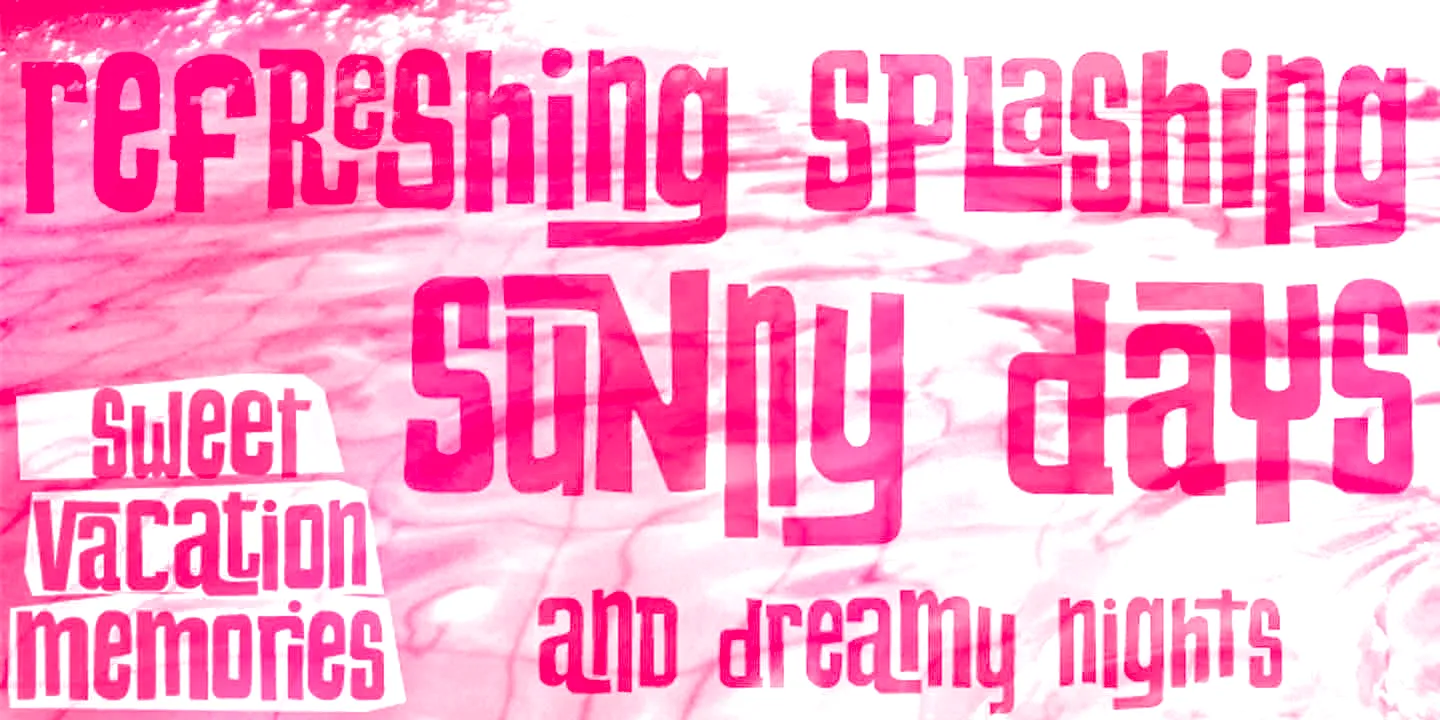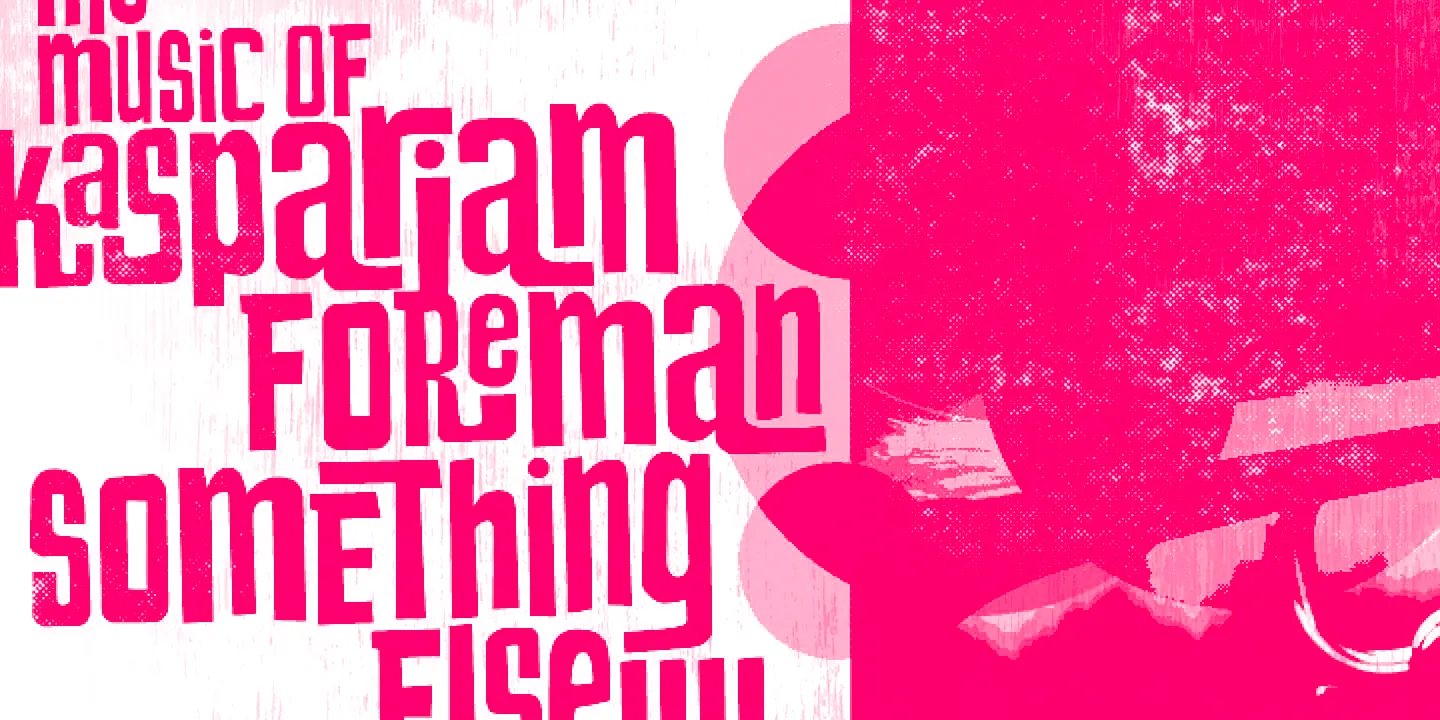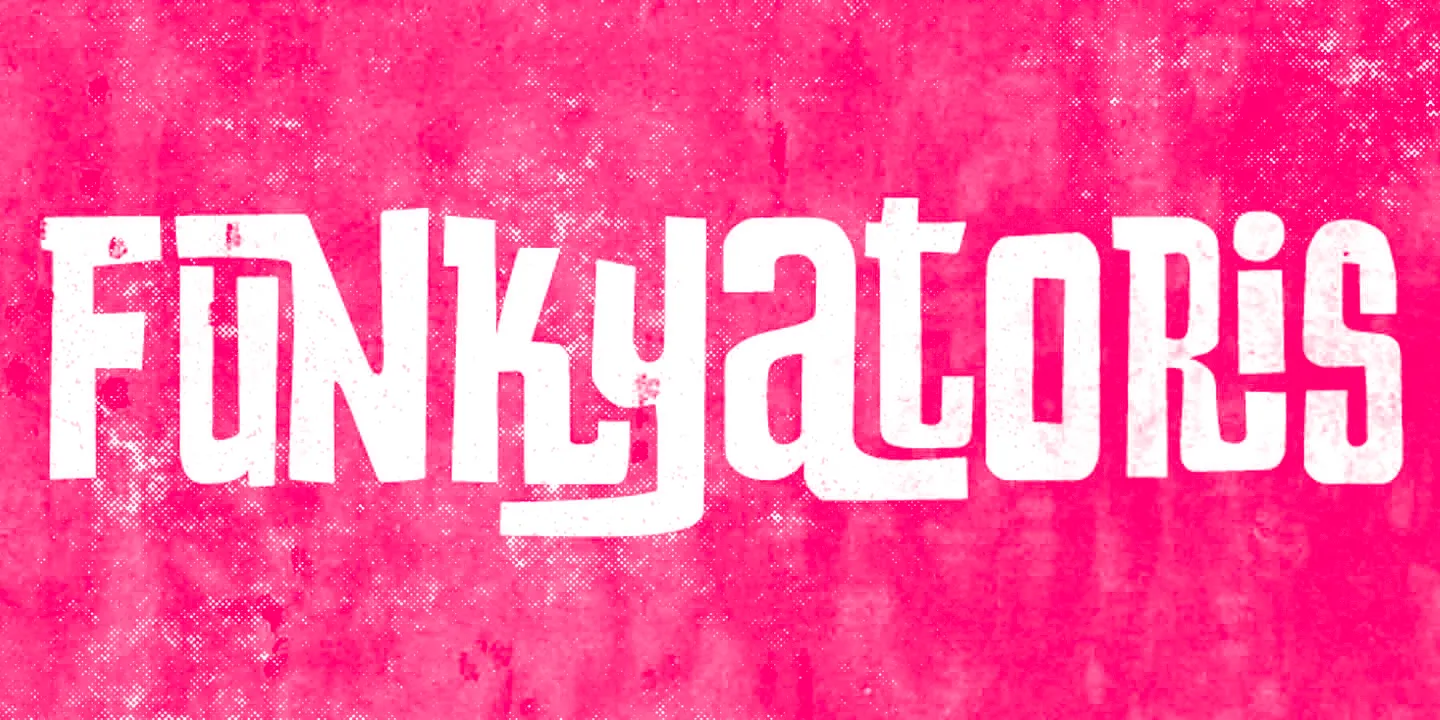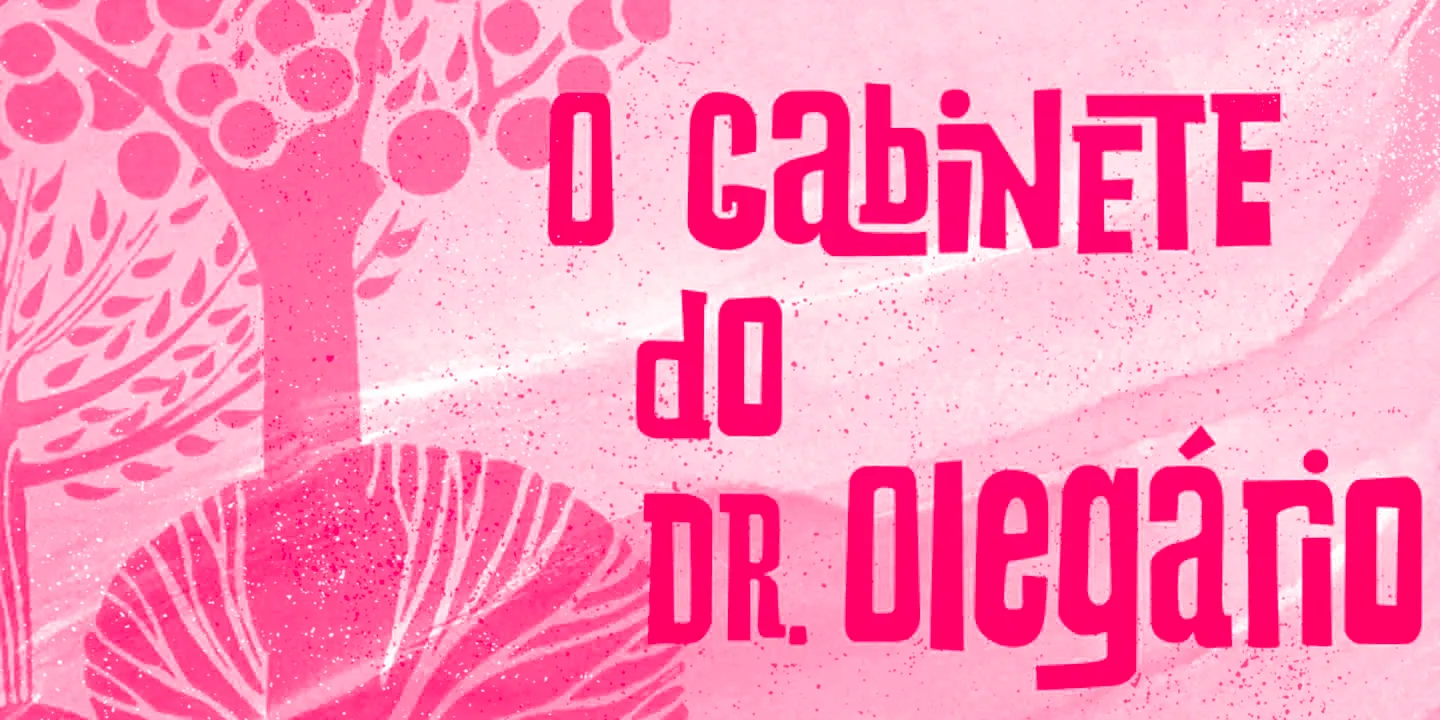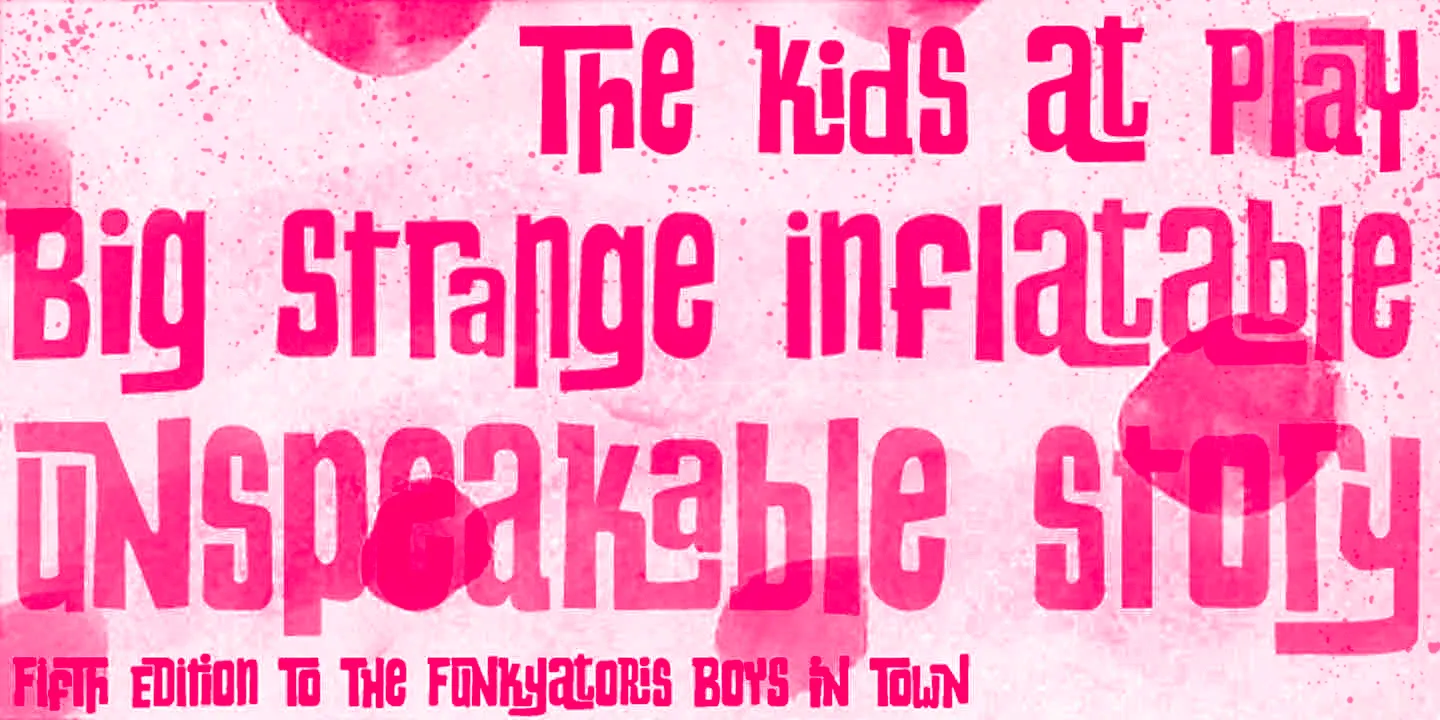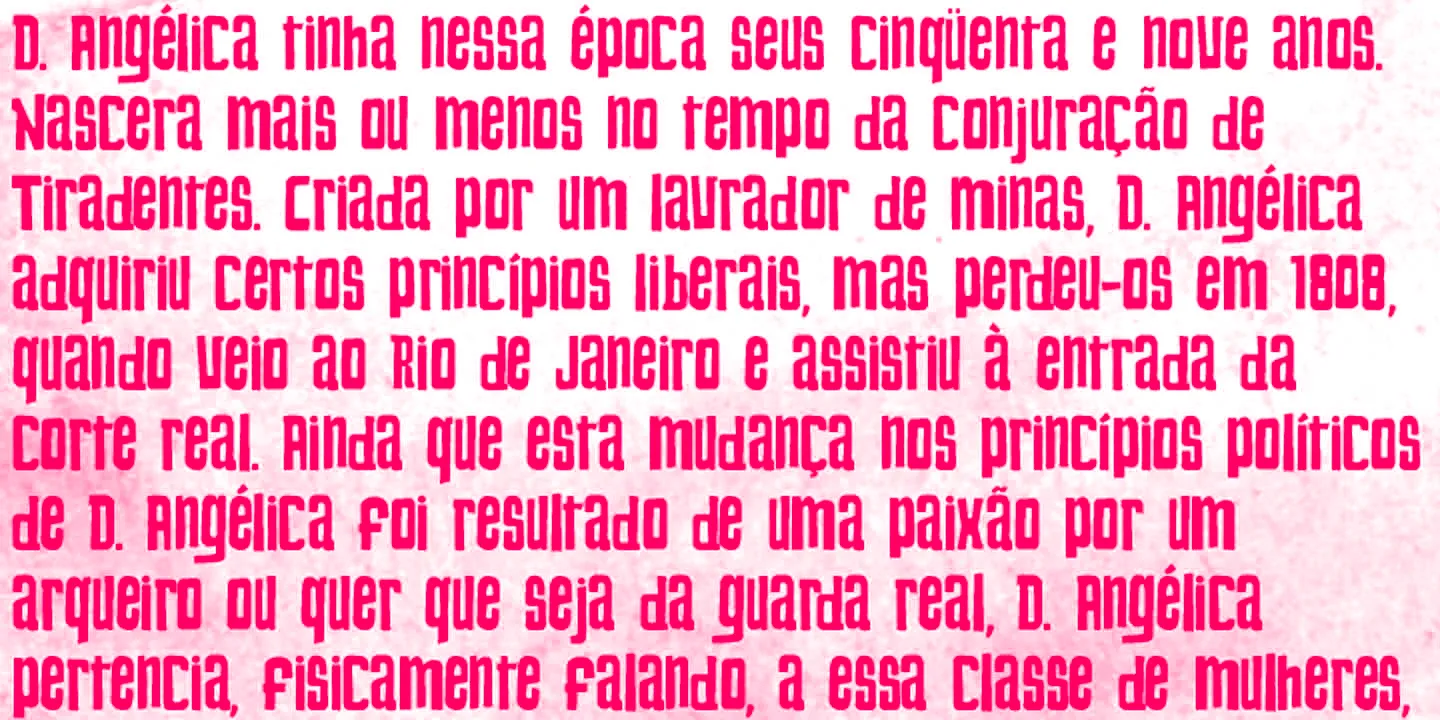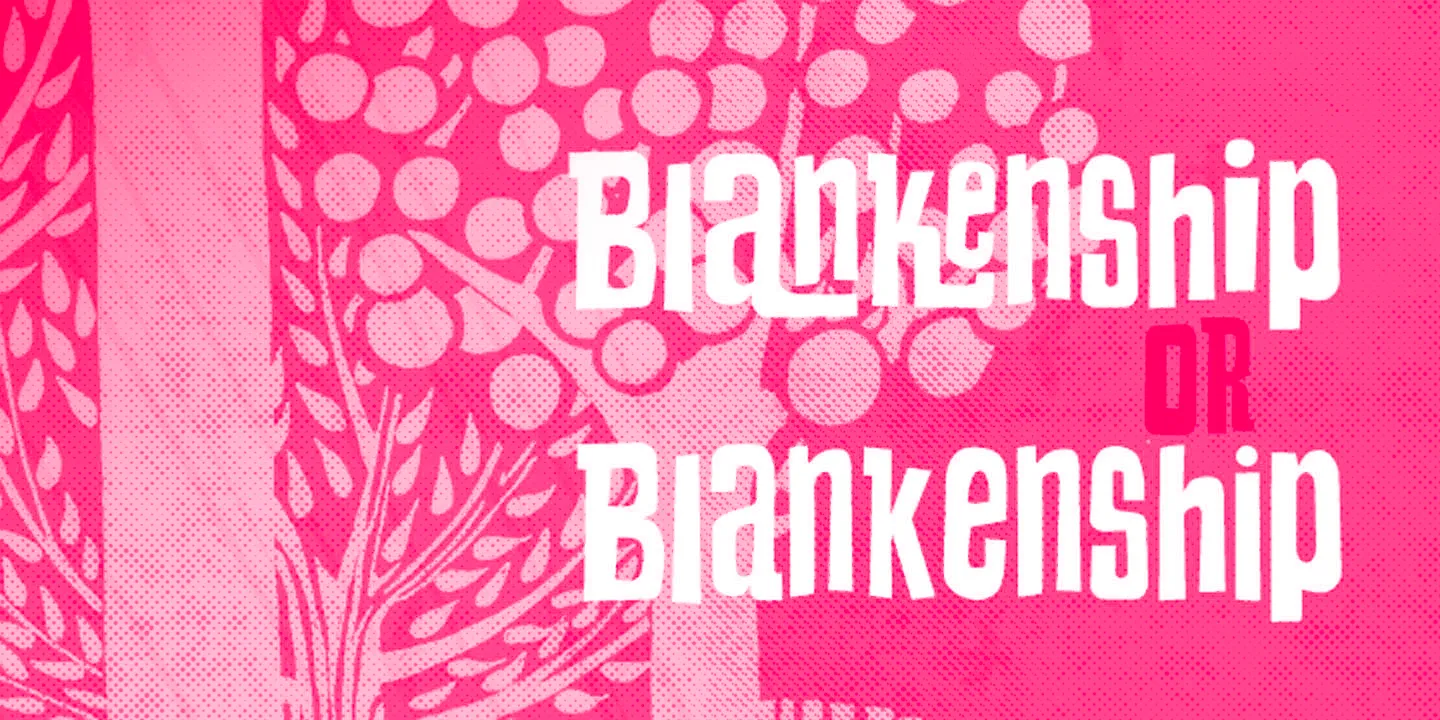
Changing Font
Changing
Changing is a bold display typeface with tall, condensed forms and strikingly irregular contours. Each character feels slightly distorted or off-kilter, creating a dynamic, unpredictable rhythm. Add in the interlocking pairs, and you get an expressive, experimental tone! Ideal for editorial headlines, posters, protest art, or branding projects.
• Discretionary Ligatures